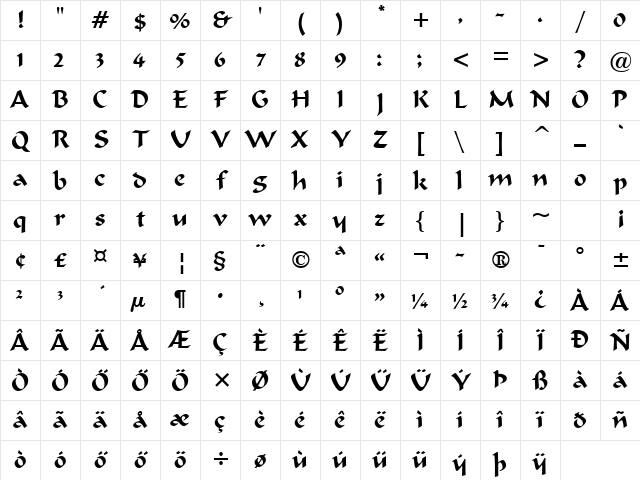
Huni_Formp Regular
Design Context for Huni_Formp
Huni_Formp is a composed and adaptable typeface that performs quietly and consistently across a wide range of design contexts.